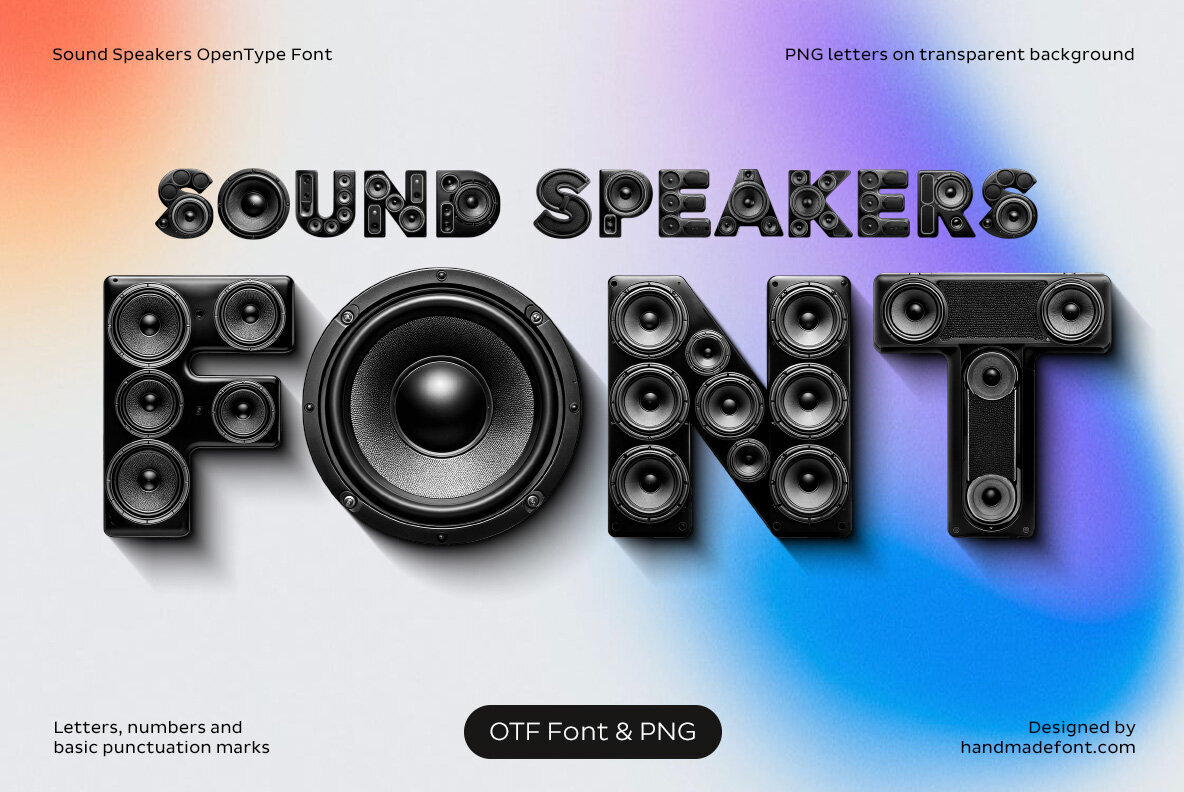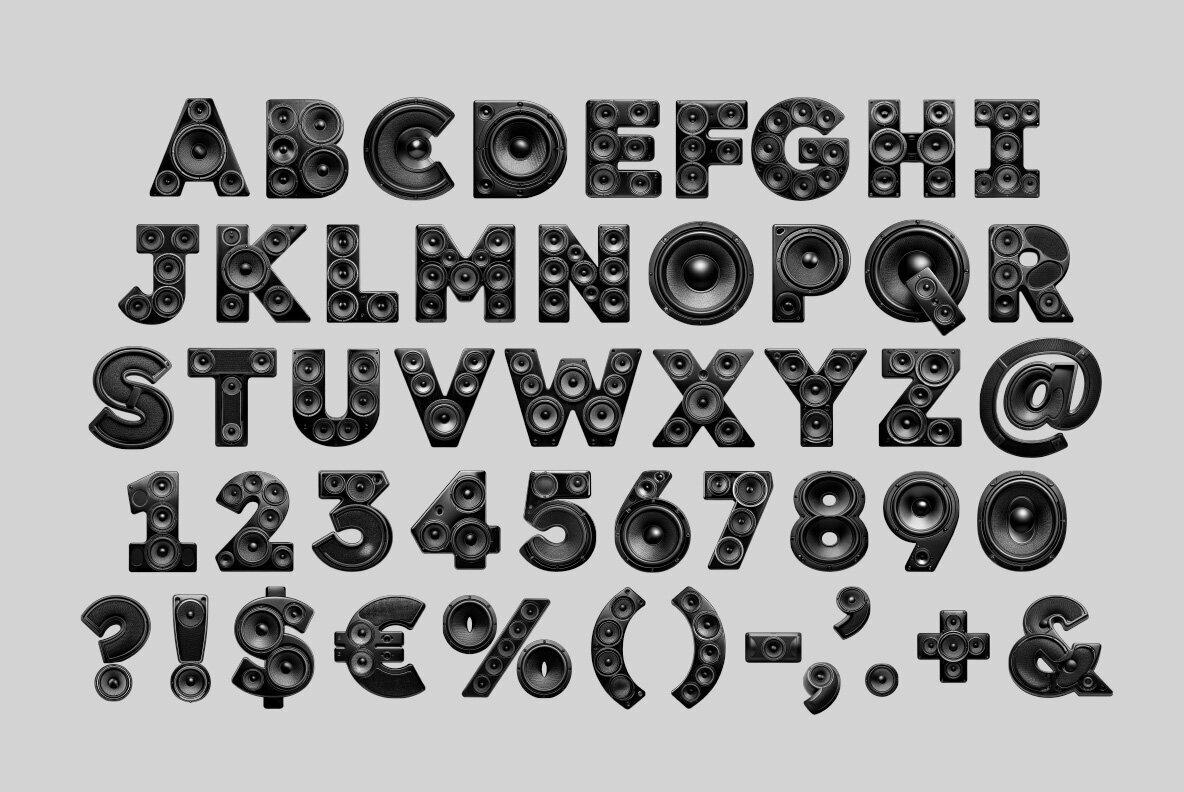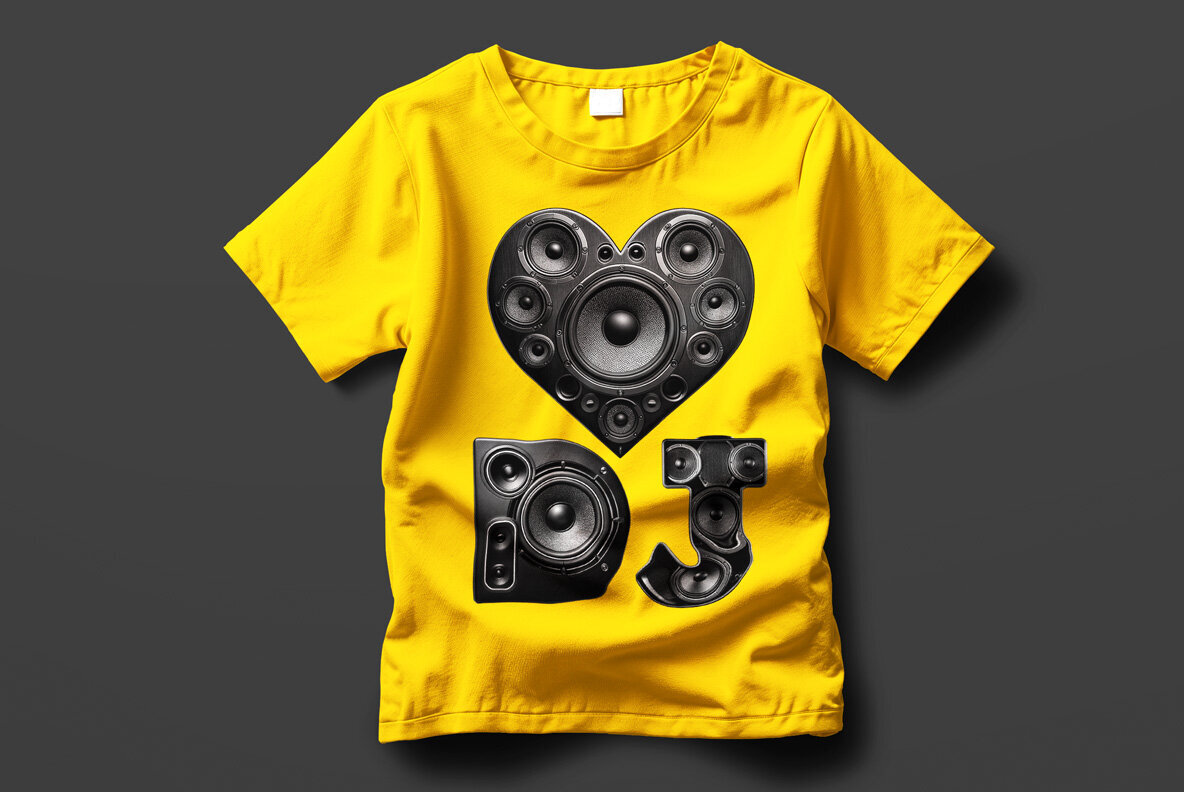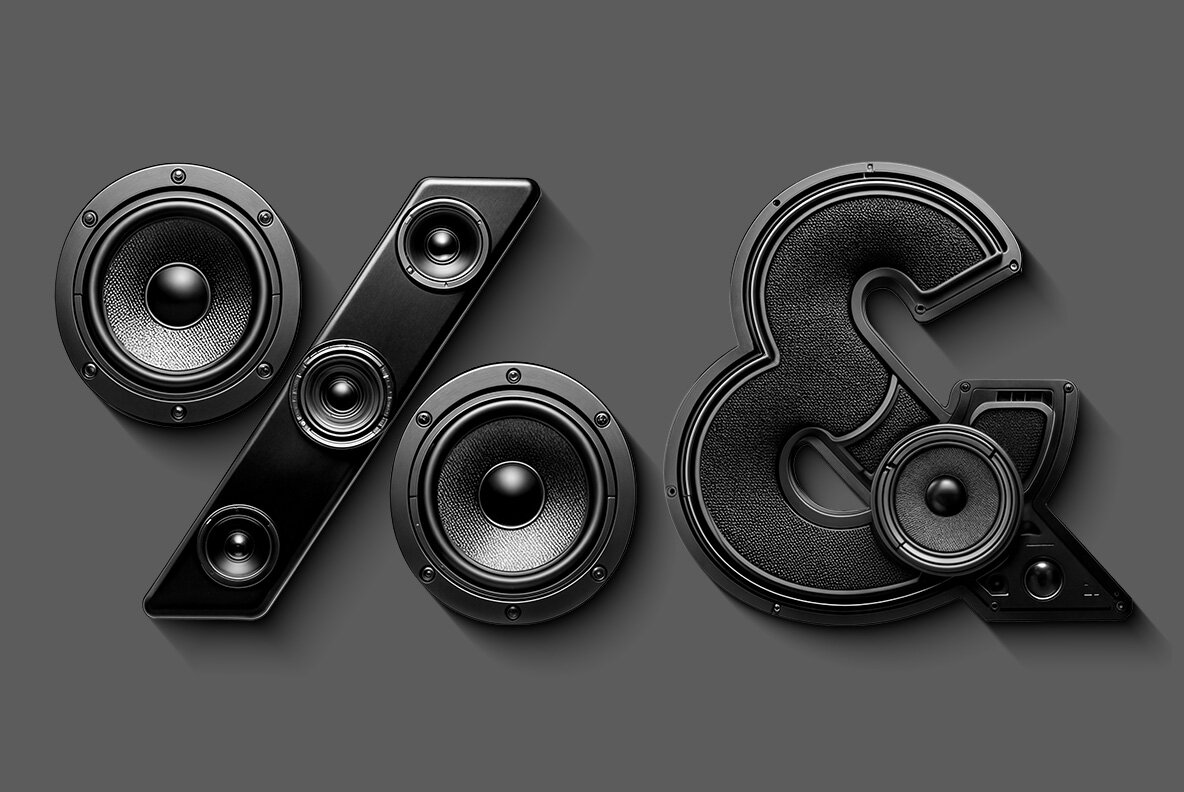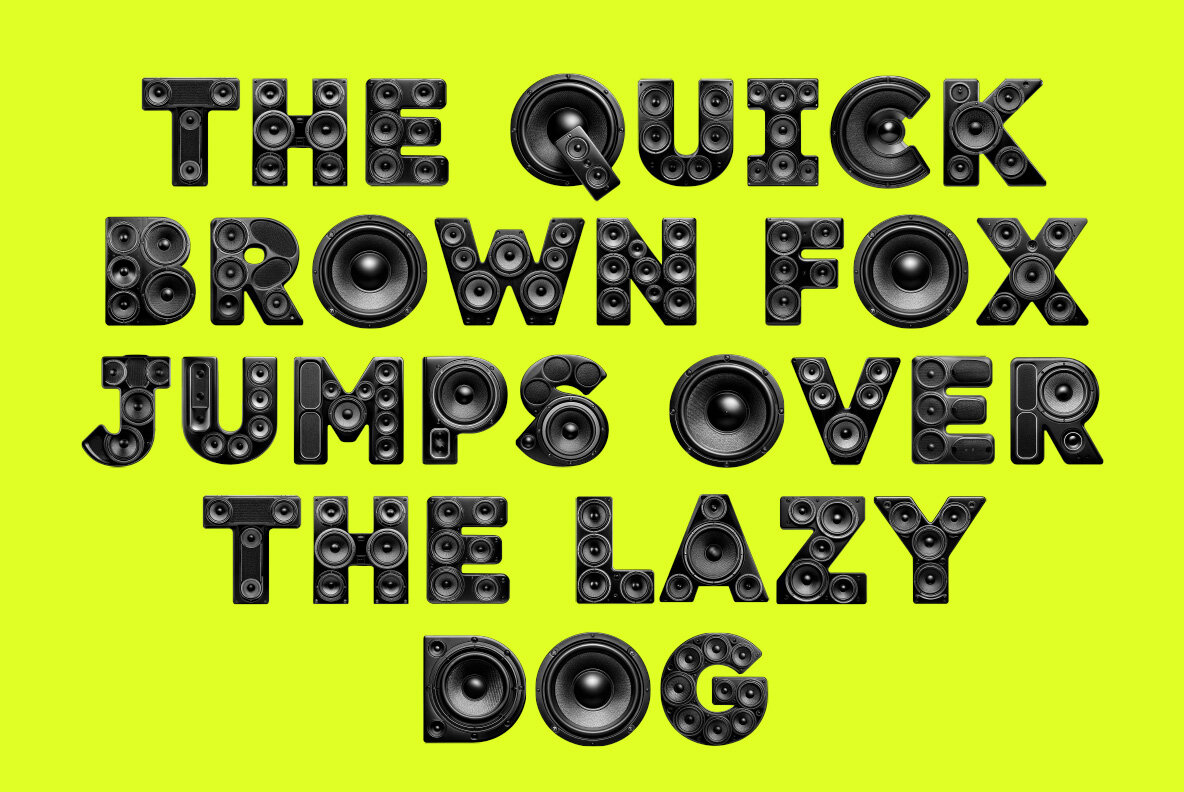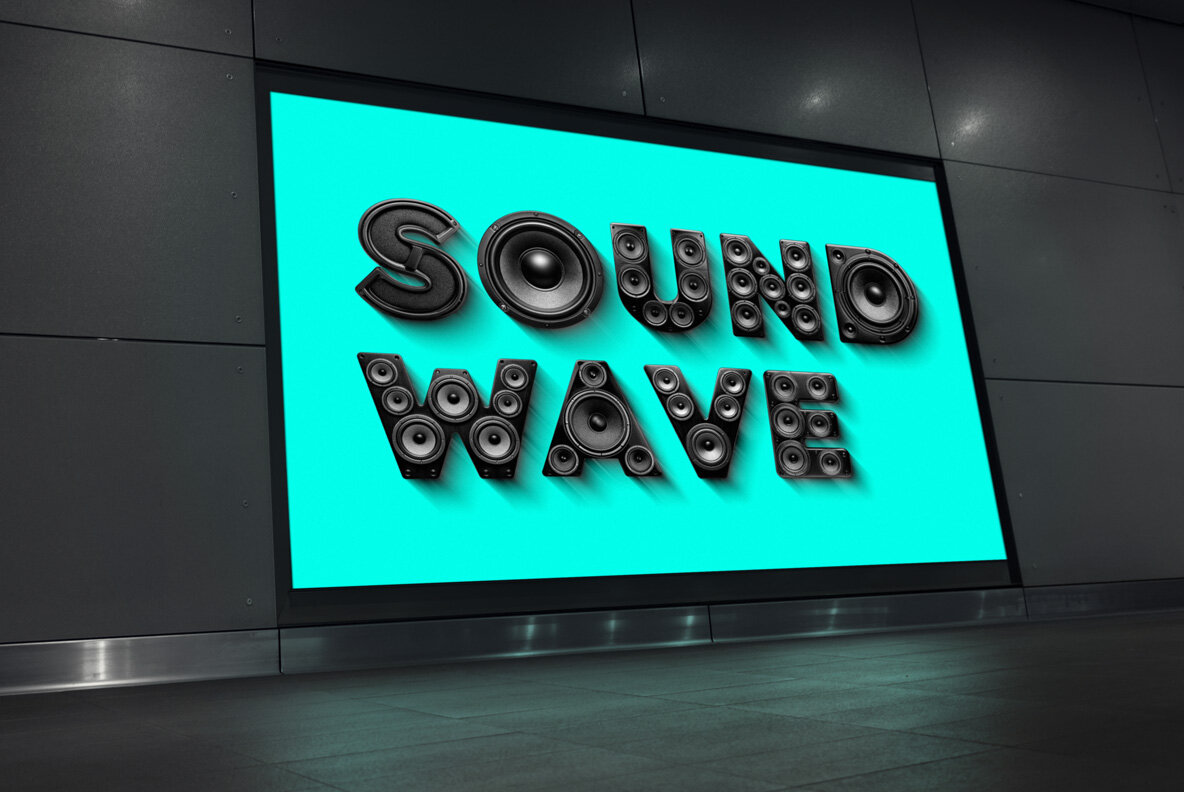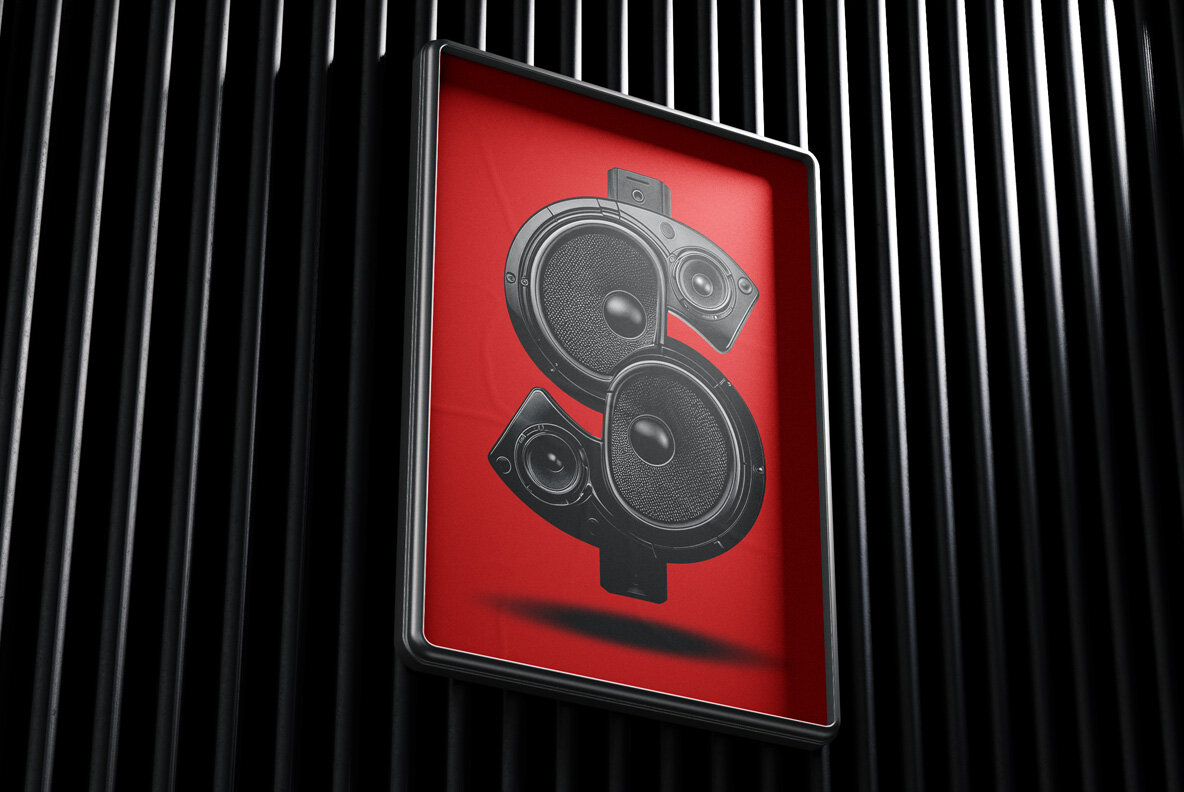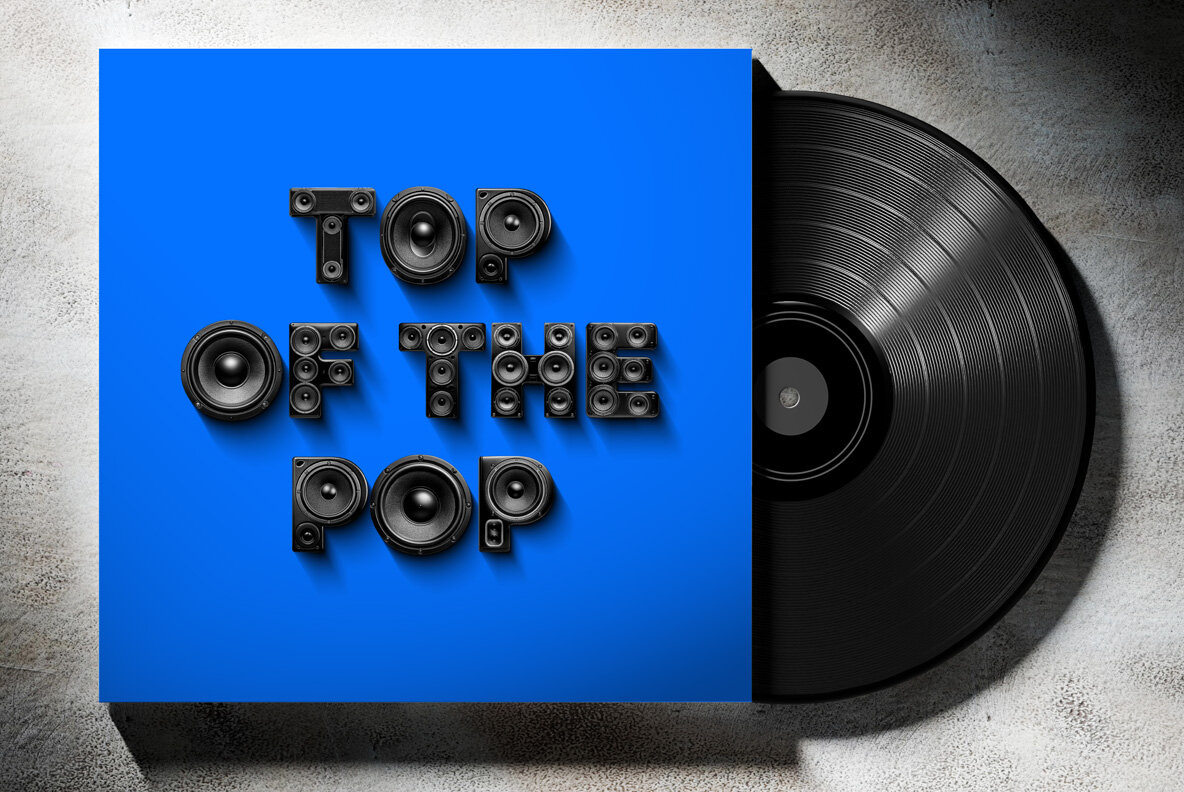
Unleash sonic energy with the Sound Speakers font, the loudest typeface around. Designed from powerful woofers and sleek speakers, each character resonates with vibrant party vibes and bass-heavy attitude. Ideal for music festivals, DJ events, club promotions, or anything that demands to be heard. This font is more than just text; it's a full-blown party in Helvetica's living room. Beware: extended use might lead to spontaneous dancing and DJ ambitions. Ready to make a statement? Drop the typographic beat with Sound Speakers. Note: Extended punctuation and language accents are provided as separate image files. This package offers 125 files, ensuring your designs pack a punch.Sound Speakers Font